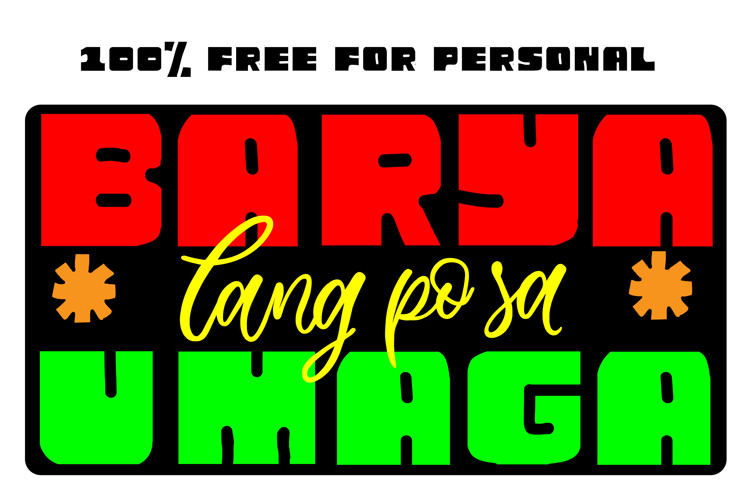
Barya lang po sa Umaga V5 Font
More info from eyecone
Barya lang po sa umaga is a font inspired by the colorful and expressive signboards of the Philippine jeepneys, the iconic public transportation vehicles that are known as the “King of the Philippine roads”. The font captures the vibrant and lively spirit of the jeepney culture, as well as the humor and wit of the drivers and passengers. The name of the font means “Just coins in the morning”, a common phrase used by jeepney drivers to ask for exact change from their early morning commuters. The font features bold and stylized letters that resemble the hand-painted typography on the jeepney signboards, which often indicate the route, destination, or slogan of the vehicle. The font also has some decorative elements that reflect the artistic flair and personality of the jeepney owners. Barya lang po sa umaga is a font that celebrates the rich and diverse heritage of the Philippine jeepneys, and pays tribute to their role in shaping the Filipino identity and culture.